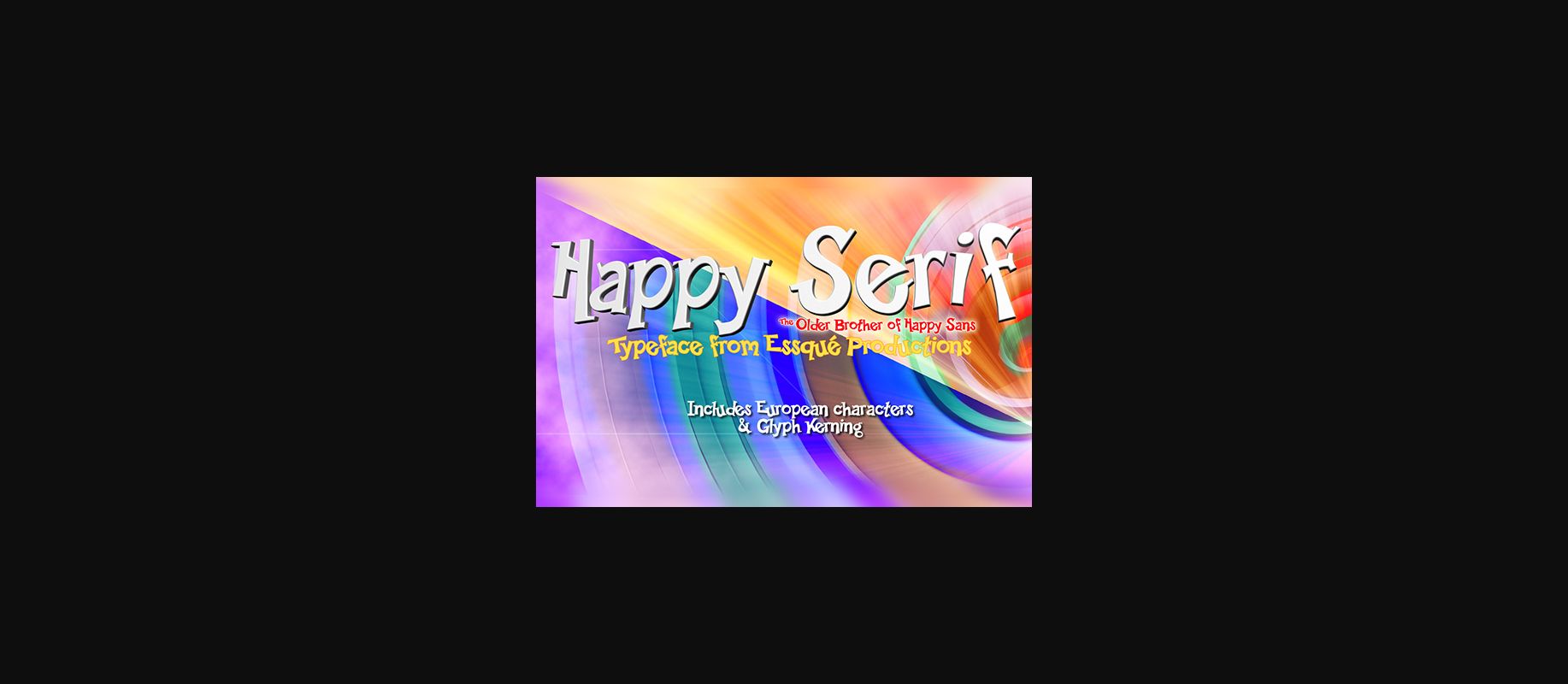
HomeDecorative FontsHappy Serif Font Decorative Fonts Happy Serif Font FacebookTwitterPinterestWhatsApp 1 of 4 ... Happy Serif Font Poster 2... Happy Serif Font Poster 3... Happy Serif Font Poster 4... About Happy Serif Font Happy Serif is a highly original and fun decorative font with a unique whimsical twist! Get inspired by its youthful charm! DOWNLOAD NOW 147 0 People also explored Anersbo Font Adelisa Font Banteuka Watercolor Font Fall Leaves Font Briliant Classy Font Beauty and the Best Font Pollen Shotem Font Cutties Betty Font Hattan Antique Butterfly Flower Font Adelio Darmanto Font TagsHappy Serif Font Previous articlePleaster FontNext articleAmbyar Font LEAVE A REPLY Cancel reply Comment: Please enter your comment! Name:* Please enter your name here Email:* You have entered an incorrect email address! Please enter your email address here Website: Save my name, email, and website in this browser for the next time I comment. Unlock Endless Creativity with the FREE September Clipart Huge Bundle (Valued at $700!) Personal Use Free Susanna Personal Use Free Read more Husky Stash Personal Use Free Read more Gagalin Personal Use Free Read more I Am Exceptional Personal Use Free Read more BLOG To increase your work productivity, choose the most readable fonts. In today's fast-paced work environment, where digital communication and information consumption are integral to our daily routines, the choice of fonts can significantly impact... Top 7 Google Fonts Alternatives for Faster and Privacy-Friendly Web Design (2025) Transform Your Website: Elevate Your Typography with 7 Best Web Font Generators Where to Buy American Fonts Online in 2024